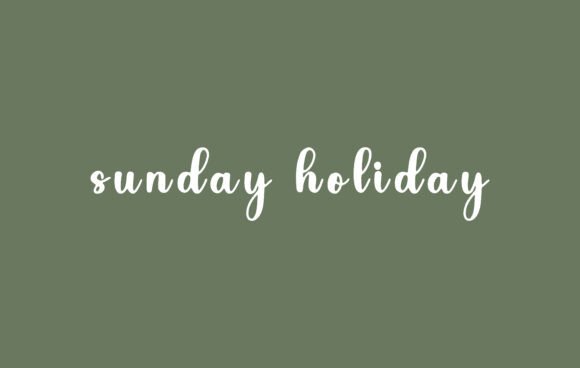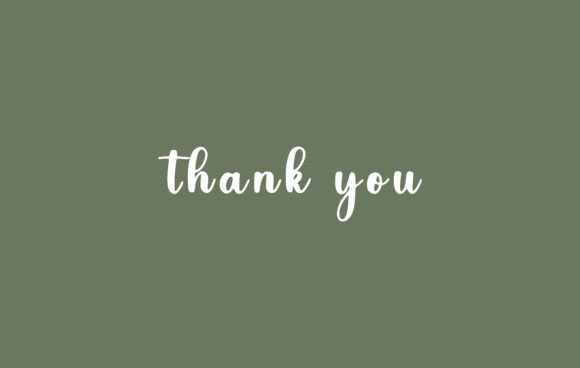
Introduction to Jazmin Font
Have you ever been stuck in front of a blank page, staring at your computer screen, trying to find the perfect font to bring your creative project to life? That’s where the magic of the Jazmin Font comes in – a true design treasure that adds a touch of romance and whimsy to any design.
As a designer, you understand the importance of having the right font to convey your message and evoke the right emotions in your audience. That’s why we’re excited to introduce you to the Jazmin Font, a high-quality, authentic handwritten font that’s perfect for any design project. With its legibility and versatility, this font is a must-have for any design resource, whether you’re working on a free download or a paid project.
From magazine headlines to wedding invitations, the Jazmin Font is a valuable addition to any designer’s toolkit. Its transparent background and beautiful, flowing script make it an ideal choice for any creative project that requires a touch of elegance and sophistication.
Key Features of Jazmin Font
- High-quality design resource ideal for creative projects requiring a touch of elegance.
- Features a transparent background, allowing for seamless integration with any design element.
- Available in a range of sizes and resolutions, from 24px to 72px, catering to various design needs.
- Unique characteristics include intricate floral patterns and ornate details, perfect for adding a touch of sophistication to any design project.
- Designed to be highly legible, even at small font sizes, making it an excellent choice for creative projects requiring clear typography.
Honest Review: Jazmin Font
As a designer, I’m always on the lookout for high-quality design resources to elevate my creative projects. The Jazmin Font has been a recent addition to my toolkit, and I’m excited to share my honest review with you.
- ✨ Beautiful, elegant script style that’s perfect for adding a touch of sophistication to my designs
- ✨ Highly legible, even at small font sizes, making it ideal for body text or headings
- ✨ Includes a transparent background, giving me the flexibility to use it on any design surface
- ⚠️ Limited font weight options, which can make it difficult to create contrast between headings and body text
- ⚠️ Not as extensive a character set as some other fonts, which can limit its use in certain creative projects
Overall, I’m impressed with the Jazmin Font’s elegance and versatility. While it may not be perfect for every project, it’s a great addition to any designer’s toolkit. With a few more font weight options and a more extensive character set, it could truly be a top-tier design resource.
Jazmin Font is a versatile design resource that can be used in a variety of creative projects, including invitations, posters, and social media graphics. Its high-quality design and transparent background make it an ideal choice for designers looking for a unique and eye-catching font.